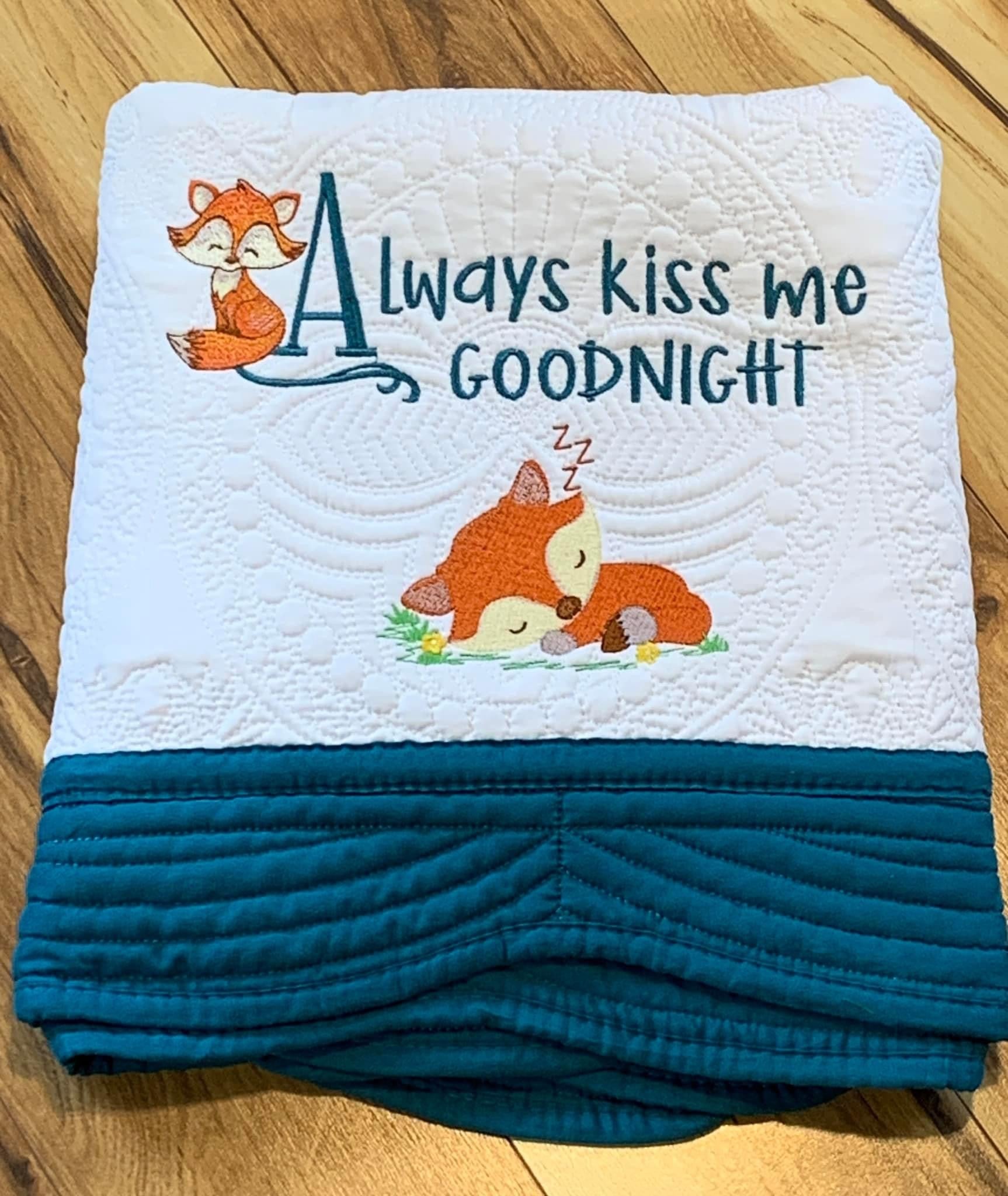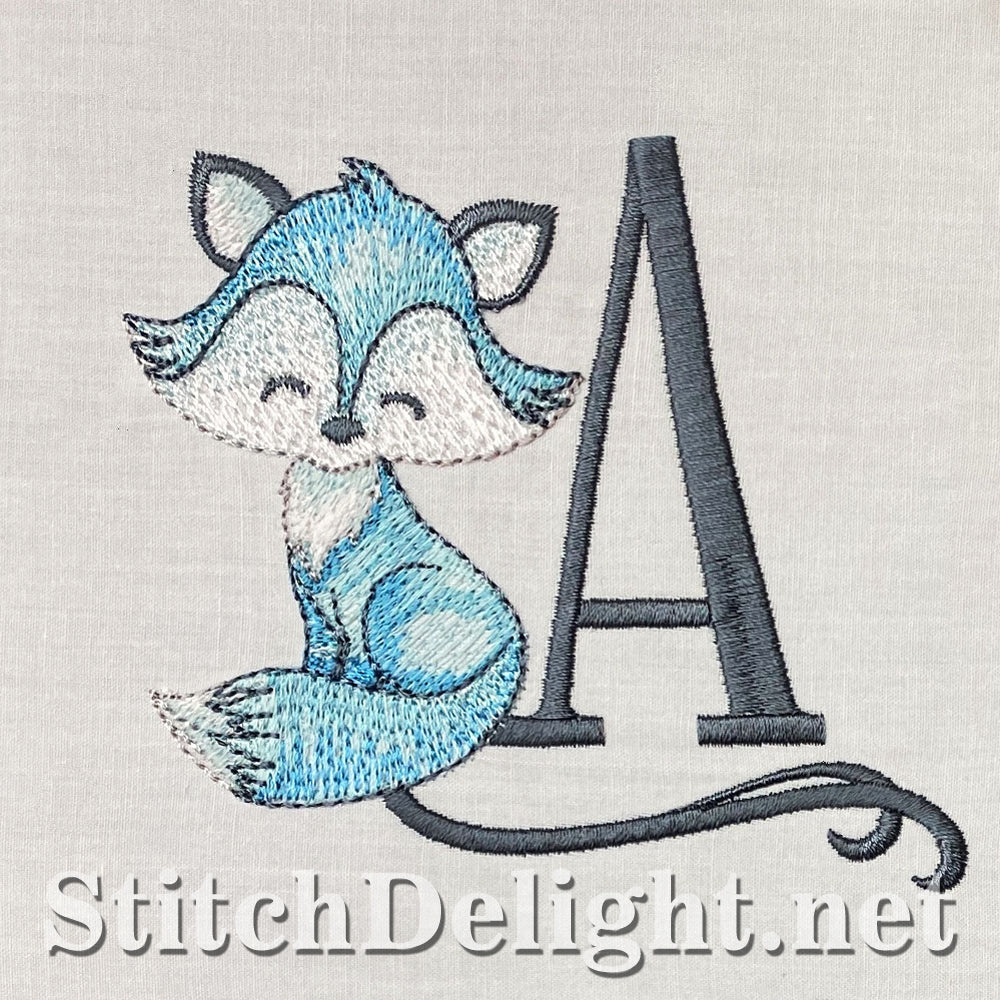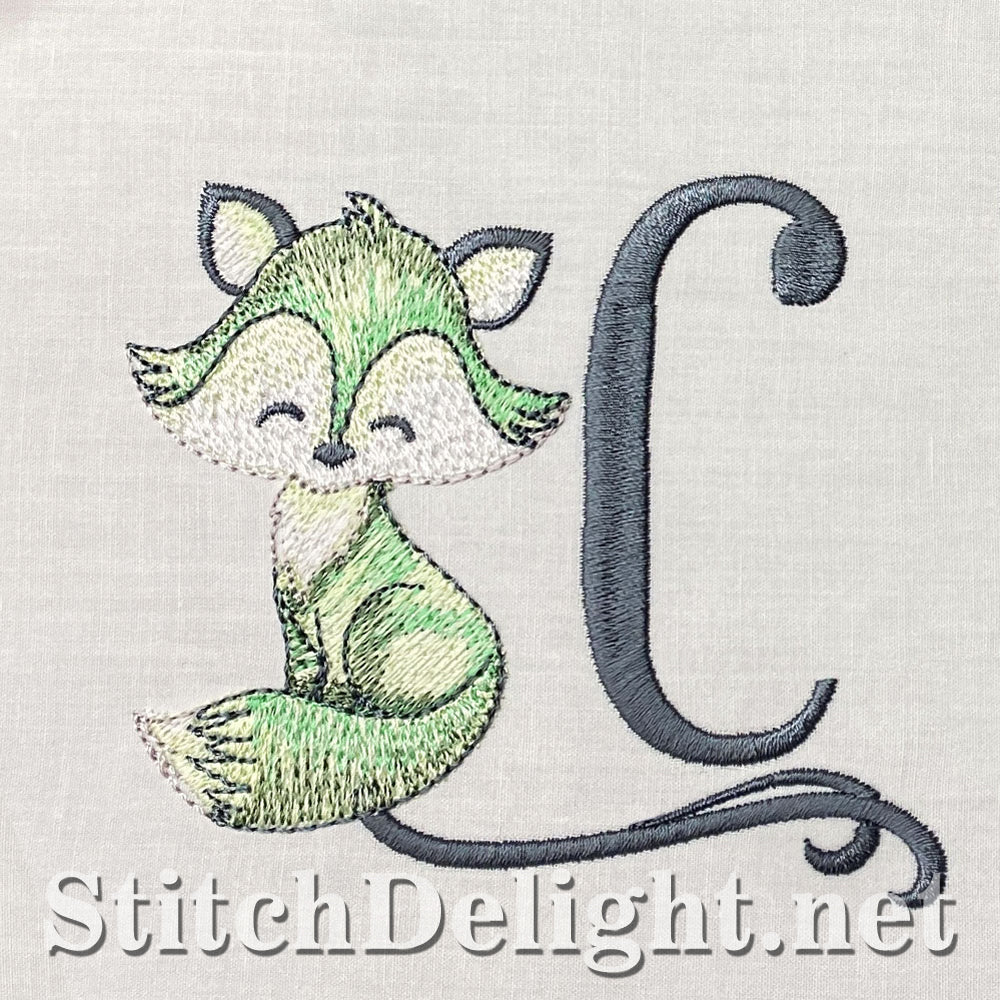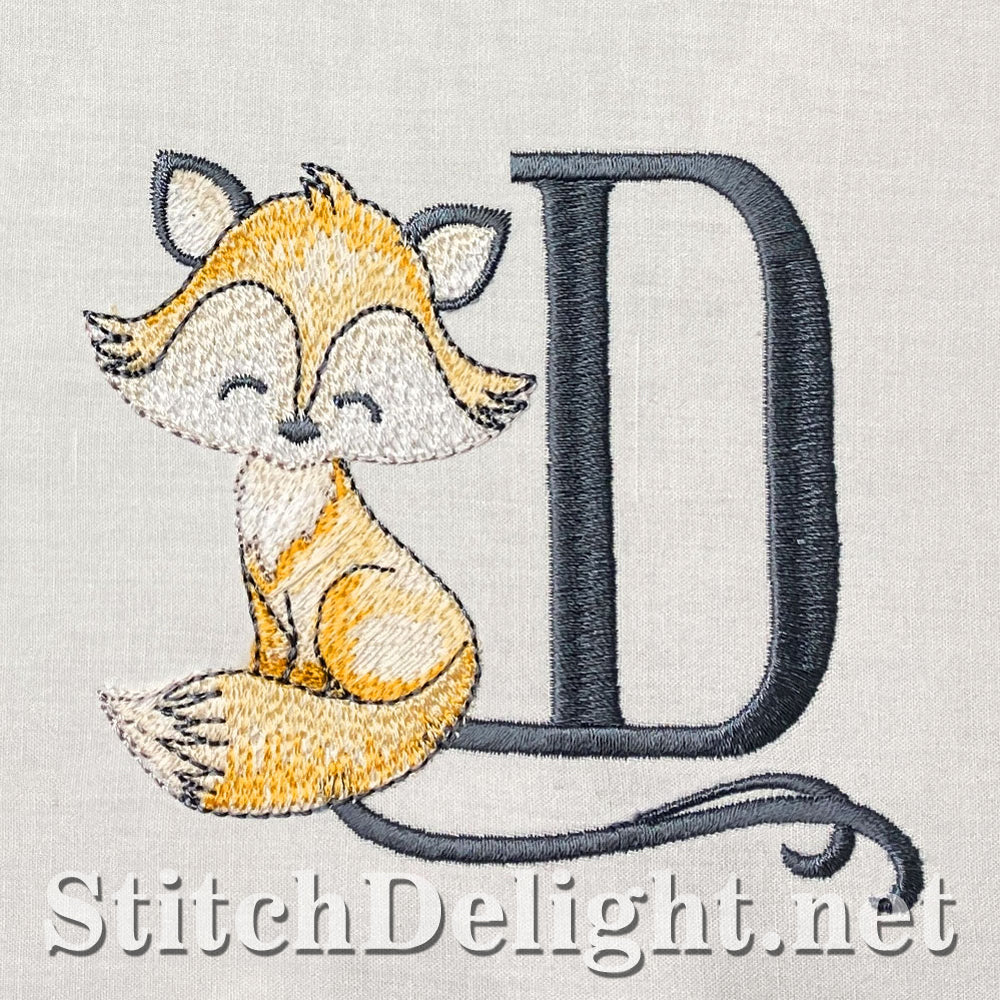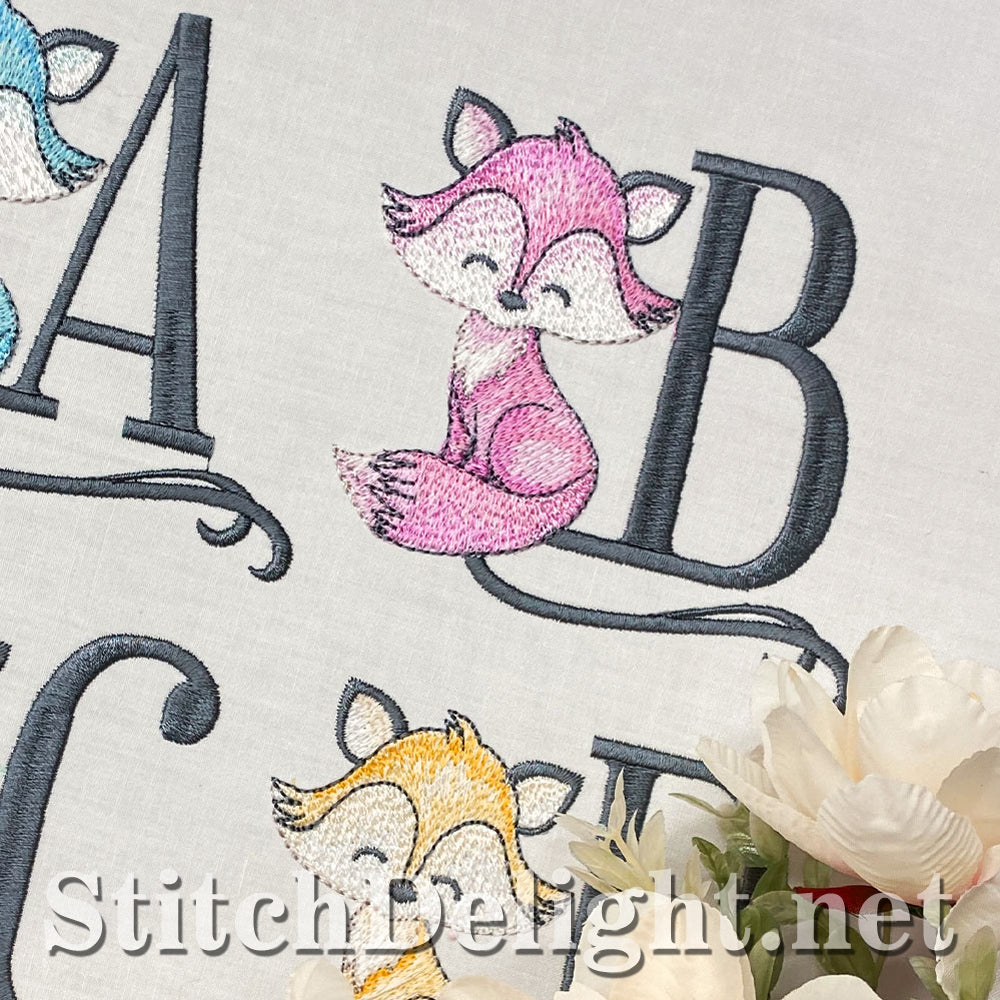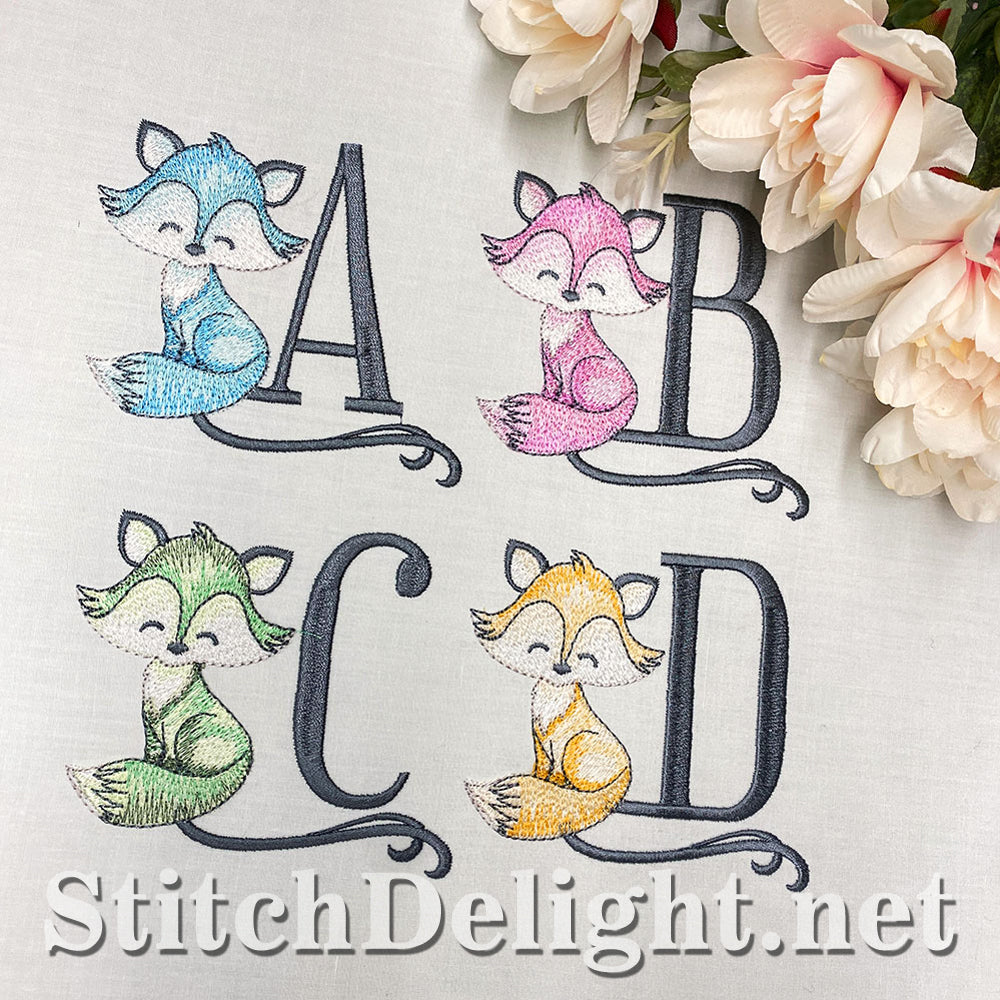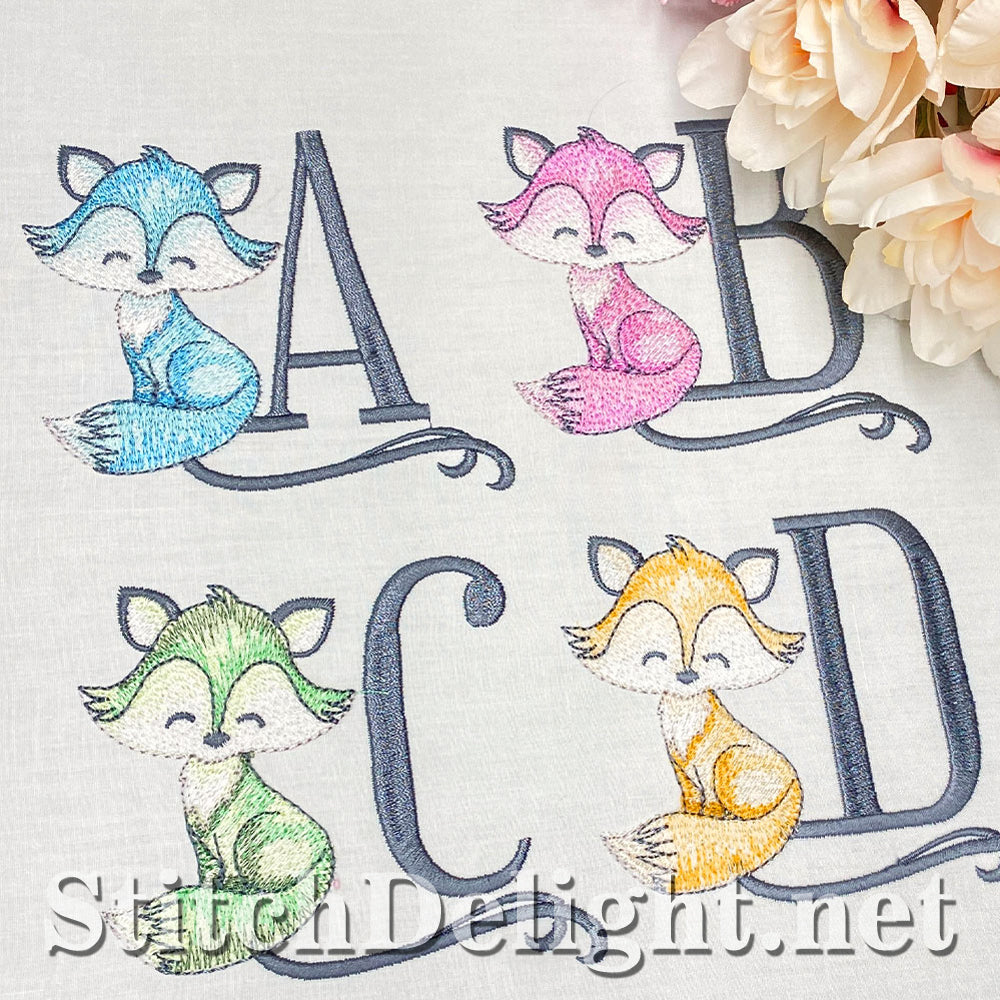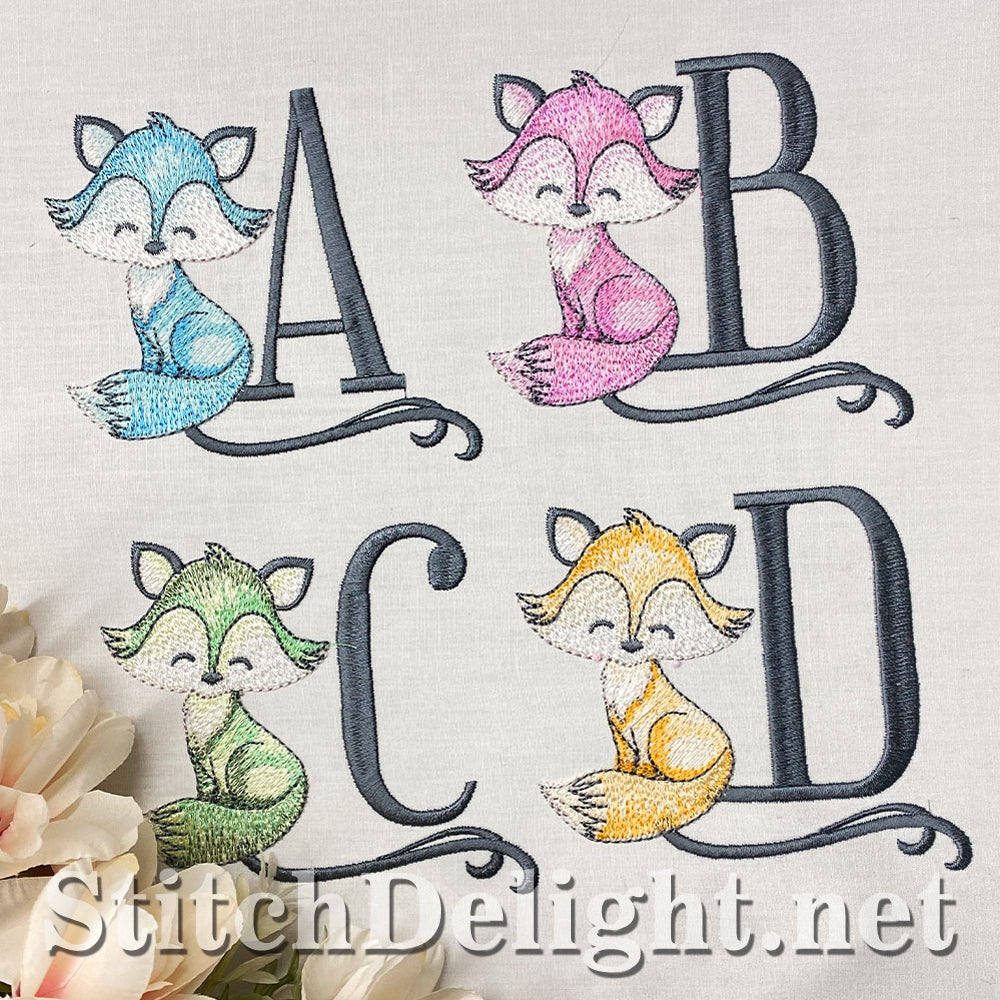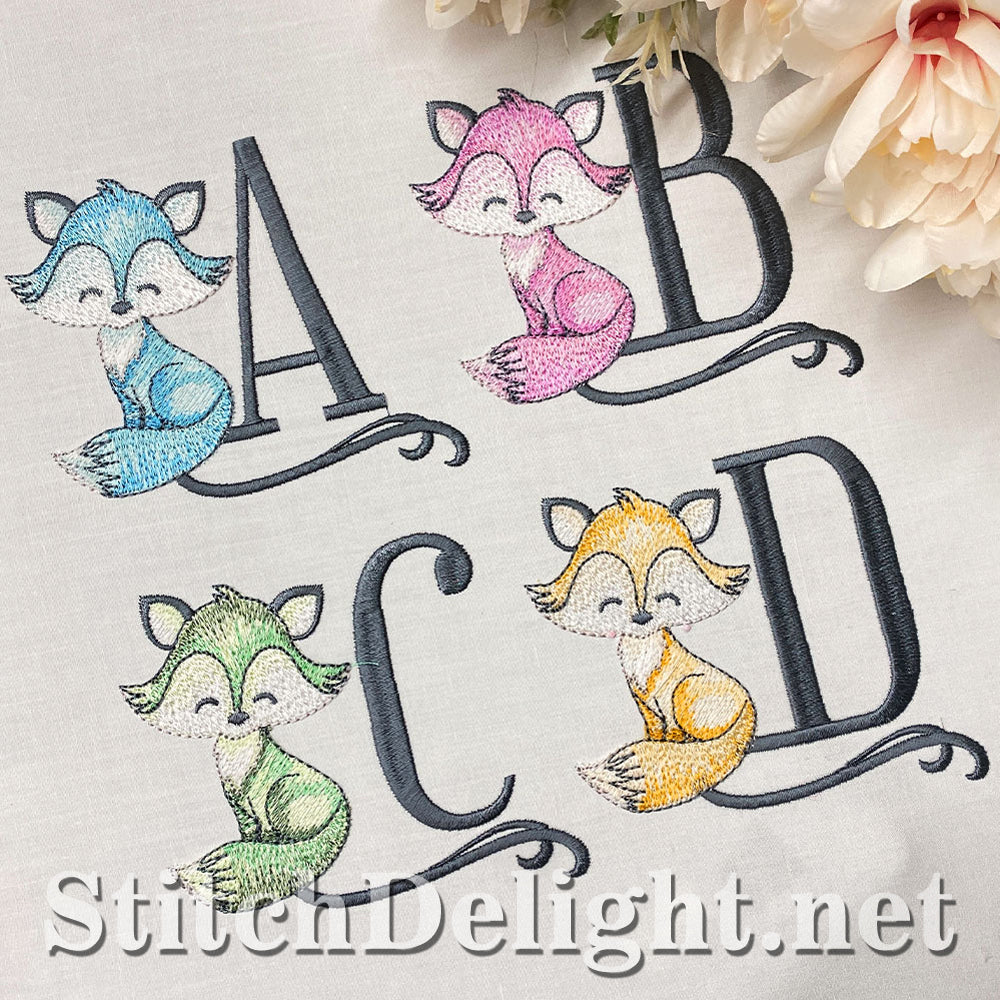
SDS5415 Finley Foxy Collectors Font
Stunning Finley foxy font, ideal for linen, towels and other gifts. See the design sizes pdf by clicking on the design sizes button on the right.